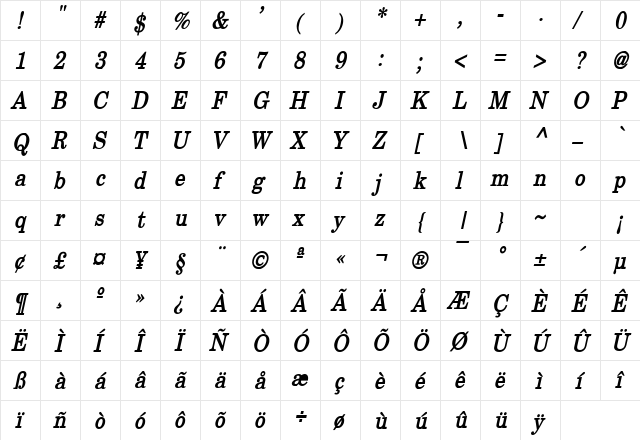
New Boston Condensed Bold Italic Font Preview
Design Context for New Boston Condensed Typeface
New Boston Condensed takes a measured approach to typography — its balanced proportions and neutral character make it a reliable workhorse for both digital and print work. The dynamic lean of this cut emphasises speed and emphasis in any layout. The heavy weight commands attention and anchors typographic hierarchies. Its narrow stance lets it pack a punch even in space-constrained designs.